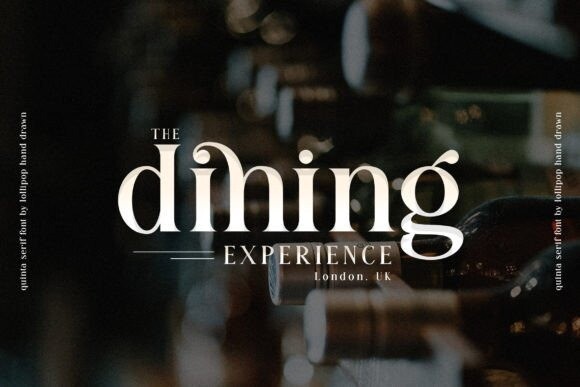
Quinta Font
Quinta is a modern and stunning serif font with an impeccable style. Clean, sleek, and stylish, this font is sure to take any of your creative designs to the highest levels. This font is PUA encoded, which means you can access all of the glyphs and swashes with ease!